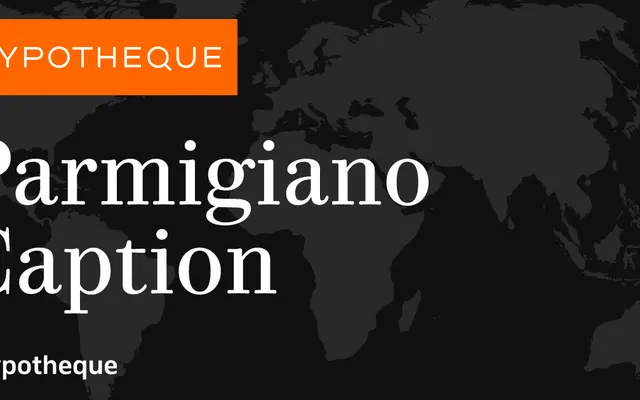
Parmigiano Caption
A caption-optimised cut from the Parmigiano system, a classical serif family taking its cues from the typographic tradition of Parma and Bodoni.
Part of a four-member optical size system that ranges from Piccolo through Caption and Text to Headline, Parmigiano Caption is tuned for small-size setting with adjusted stroke contrast and open spacing to maintain legibility. The full system offers six weights from Thin to Black, each with a matching italic, and a variable version of the Text subfamily is also available. The family sits comfortably in book, magazine and long-form editorial work where consistent performance across multiple sizes is a requirement.
Parmigiano is a classical serif system drawn in the tradition of Bodoni and Parma's typographic heritage, with the Caption subfamily optimised for small text sizes through adjusted contrast and spacing.